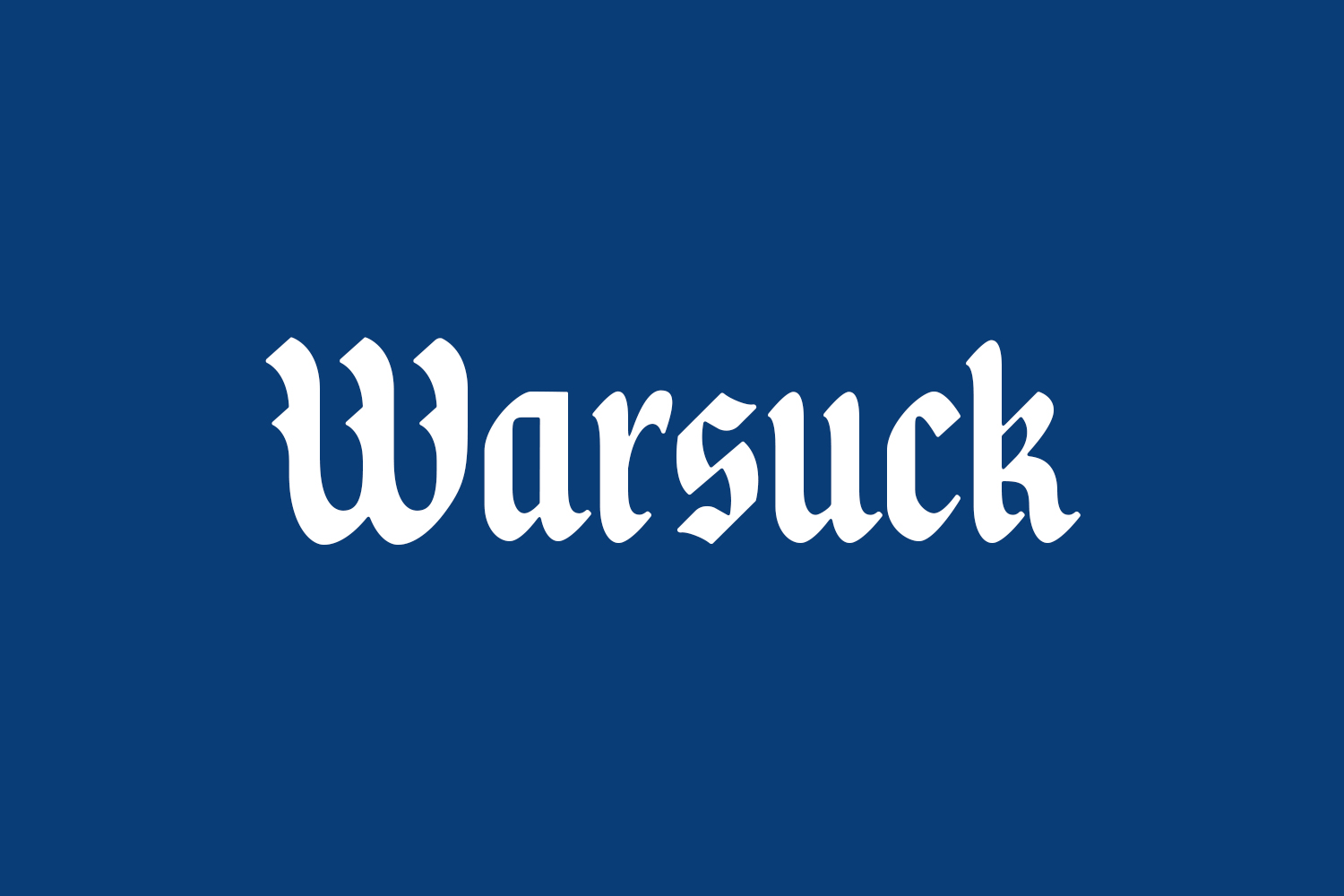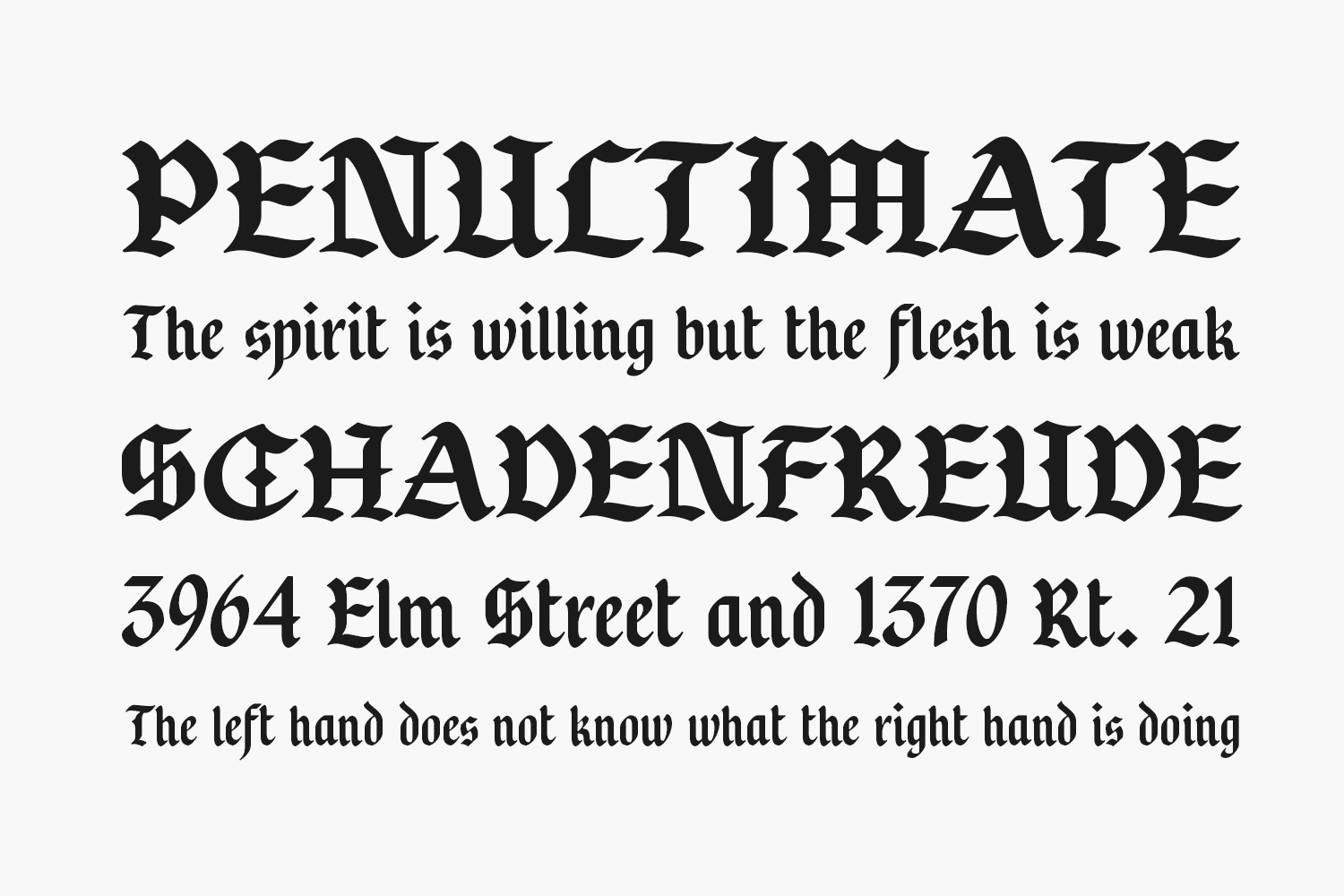
Explore the bold and distinctive Warsuck Free Font, featuring thick lettering that adds a powerful touch to your designs. Ideal for a variety of applications, including t-shirts, sportswear, logos, advertisements, and clothing. Elevate your brand with this versatile font choice. Warsuck Free Font was designed by Akifatype Studio and is free for personal use only. Please purchase the full version for commercial use.